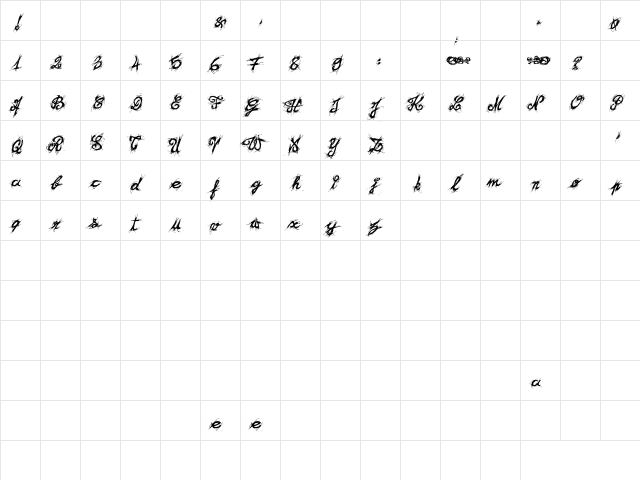
<El&Font! Brush> Regular Font Preview
Design Context for <El&Font! Brush> Typeface
<El&Font! Brush> brings a calligraphic fluidity to the page — its connecting strokes and expressive curves give it an unmistakably human quality. Its slender proportions lend an understated elegance to any composition.
Font Pairing: Combine <El&Font! Brush> with a simple geometric sans for maximum contrast — the tension between flowing curves and clean structure is a classic typographic pairing.
Pro Tip: Pair <El&Font! Brush> with a clean sans-serif for supporting text. The contrast between fluid script and geometric structure creates an elegant typographic hierarchy.